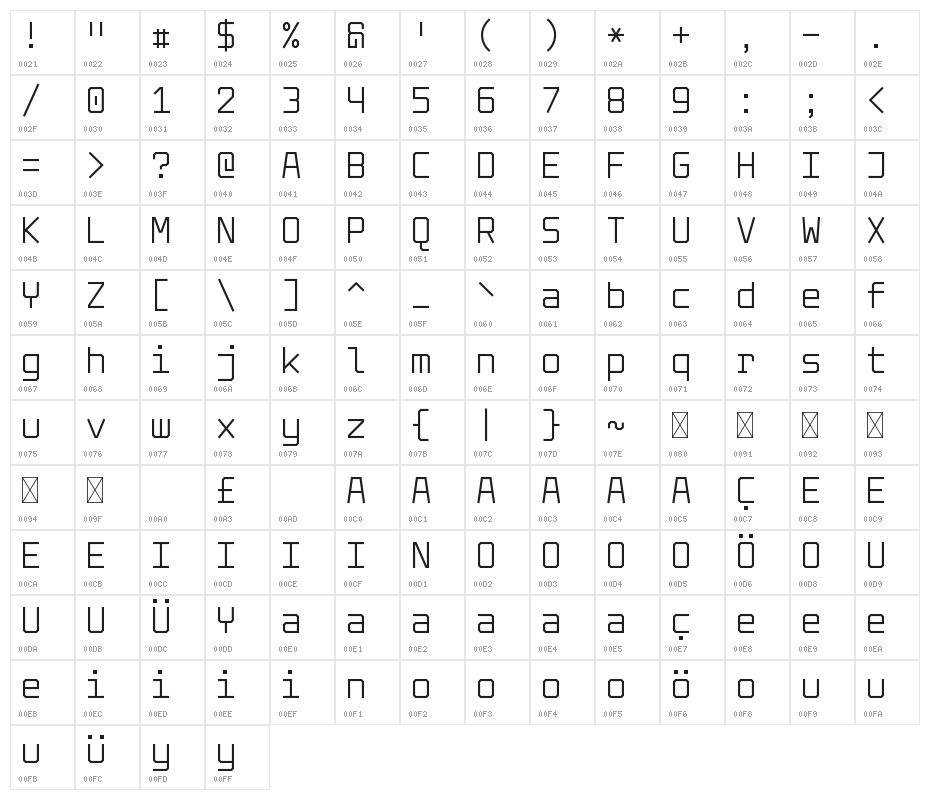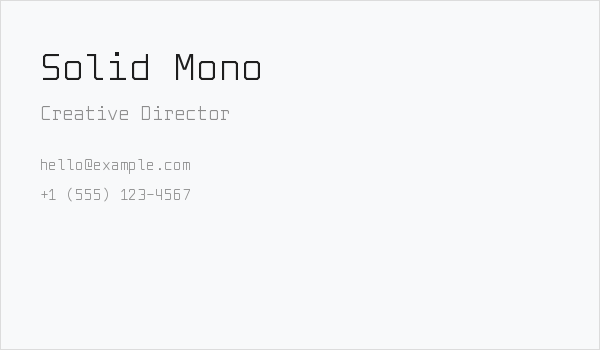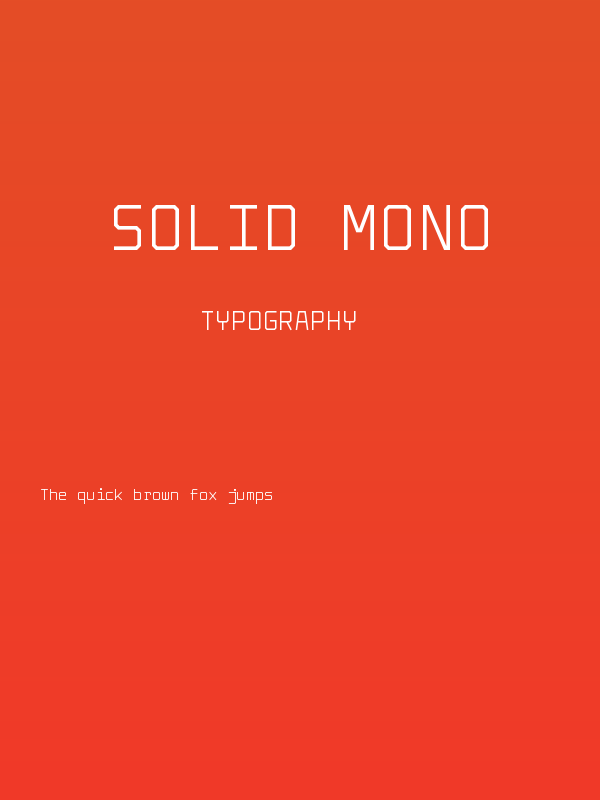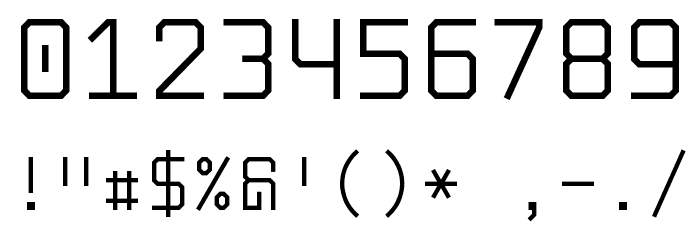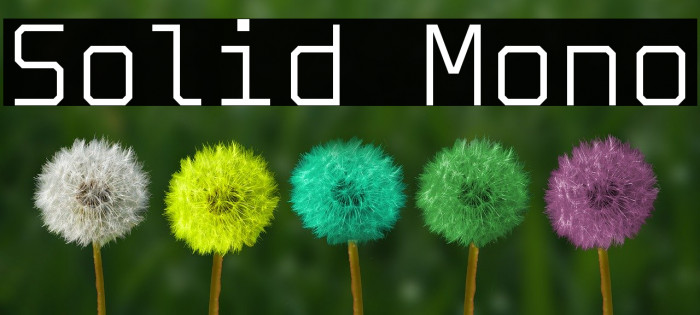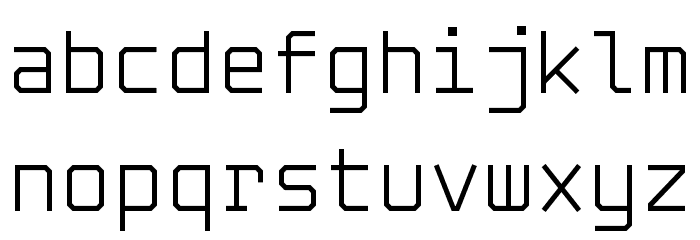
Solid Mono Font
Fonts by Rahman Yerli
| 用途 | Coding, Technical documentation, User interfaces |
| おすすめプロジェクト | Ideal for coding, technical documentation, and any project requiring a clean, modern typeface. |